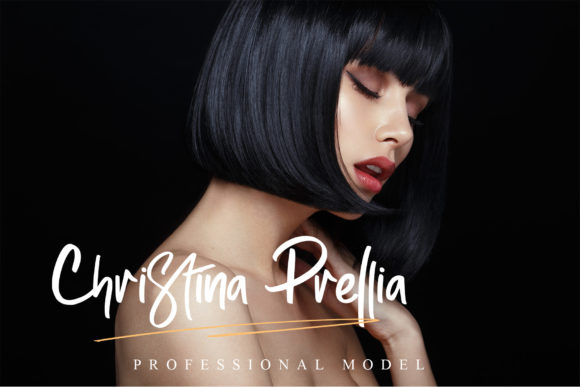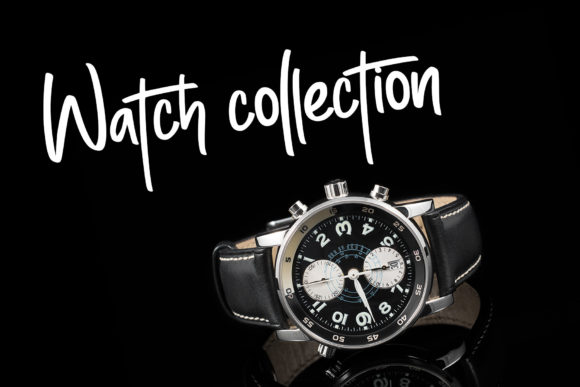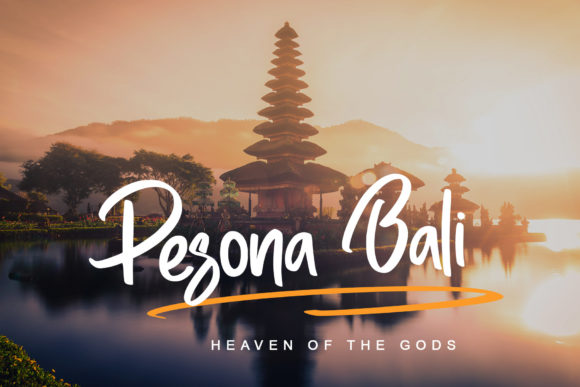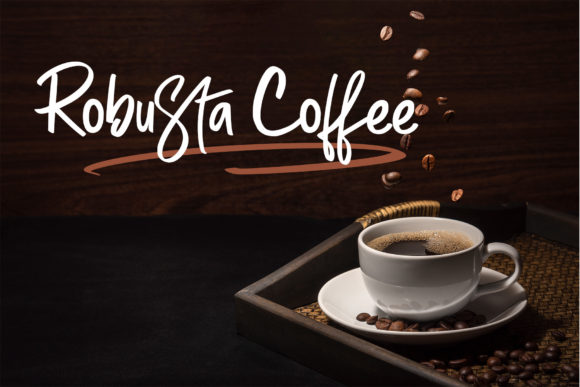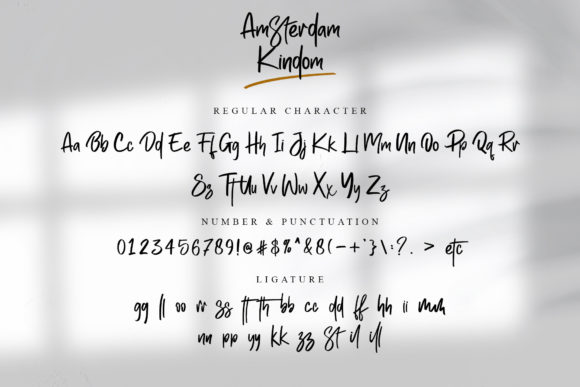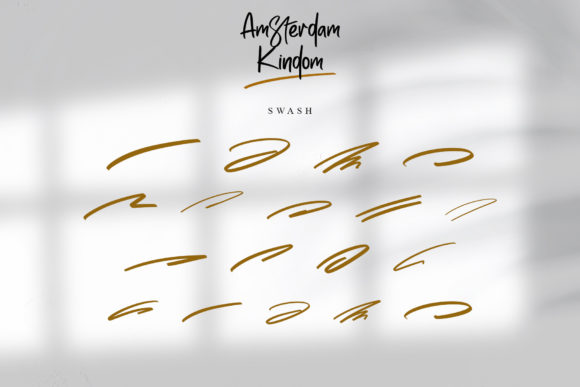
Introducing Amsterdam Kingdom Font: Elevate Your Designs with a Unique Handwritten Style
Are you tired of using the same old fonts in your design projects? Do you want to add a touch of elegance and sophistication to your creations? Look no further than the Amsterdam Kingdom Font, a beautiful handwritten font that is sure to make your designs stand out. With its unique feel and stunning impact, this font is perfect for designers and crafters looking to add a little something extra to their work.
What Makes Amsterdam Kingdom Font So Special?
Amsterdam Kingdom Font is a truly one-of-a-kind font that offers a range of features that set it apart from other fonts on the market. Here are just a few of the things that make it so special:
- Unique Handwritten Style: Amsterdam Kingdom Font has a beautiful, handwritten style that is both elegant and sophisticated. Its unique feel makes it perfect for a wide range of design projects, from wedding invitations to branding and packaging.
- PUA Encoded: This font is PUA (Private Use Area) encoded, which means that you can access all of the amazing glyphs and ligatures with ease. This makes it easy to create beautiful, intricate designs that are sure to impress.
- Stunning Impact: Amsterdam Kingdom Font has a stunning impact that is sure to elevate your designs to the next level. Its unique style and elegant feel make it perfect for creating designs that are both eye-catching and sophisticated.
How to Use Amsterdam Kingdom Font in Your Designs
Amsterdam Kingdom Font is easy to use and can be incorporated into a wide range of design projects. Here are a few ideas to get you started:
- Wedding Invitations: Use Amsterdam Kingdom Font to create beautiful, elegant wedding invitations that are sure to impress your guests.
- Branding and Packaging: This font is perfect for creating unique and eye-catching branding and packaging designs that will help your products stand out on store shelves.
- Stationery and Cards: Use Amsterdam Kingdom Font to create beautiful stationery and cards that are perfect for special occasions.
- Digital Designs: This font is also perfect for digital designs, such as social media graphics, blog posts, and more.
Tips and Tricks for Getting the Most Out of Amsterdam Kingdom Font
Here are a few tips and tricks for getting the most out of Amsterdam Kingdom Font:
- Use it with Other Fonts: Amsterdam Kingdom Font pairs well with a range of other fonts, so don’t be afraid to get creative and try out different combinations.
- Take Advantage of the Glyphs and Ligatures: With PUA encoding, you can access a range of glyphs and ligatures that will help you create beautiful, intricate designs.
Amsterdam Kingdom Font is a truly unique and special font that is sure to elevate your designs to the next level. With its beautiful handwritten style, PUA encoding, and stunning impact, it’s perfect for a wide range of design projects. Whether you’re a designer, crafter, or simply someone who loves to create, Amsterdam Kingdom Font is a must-have addition to your font collection.